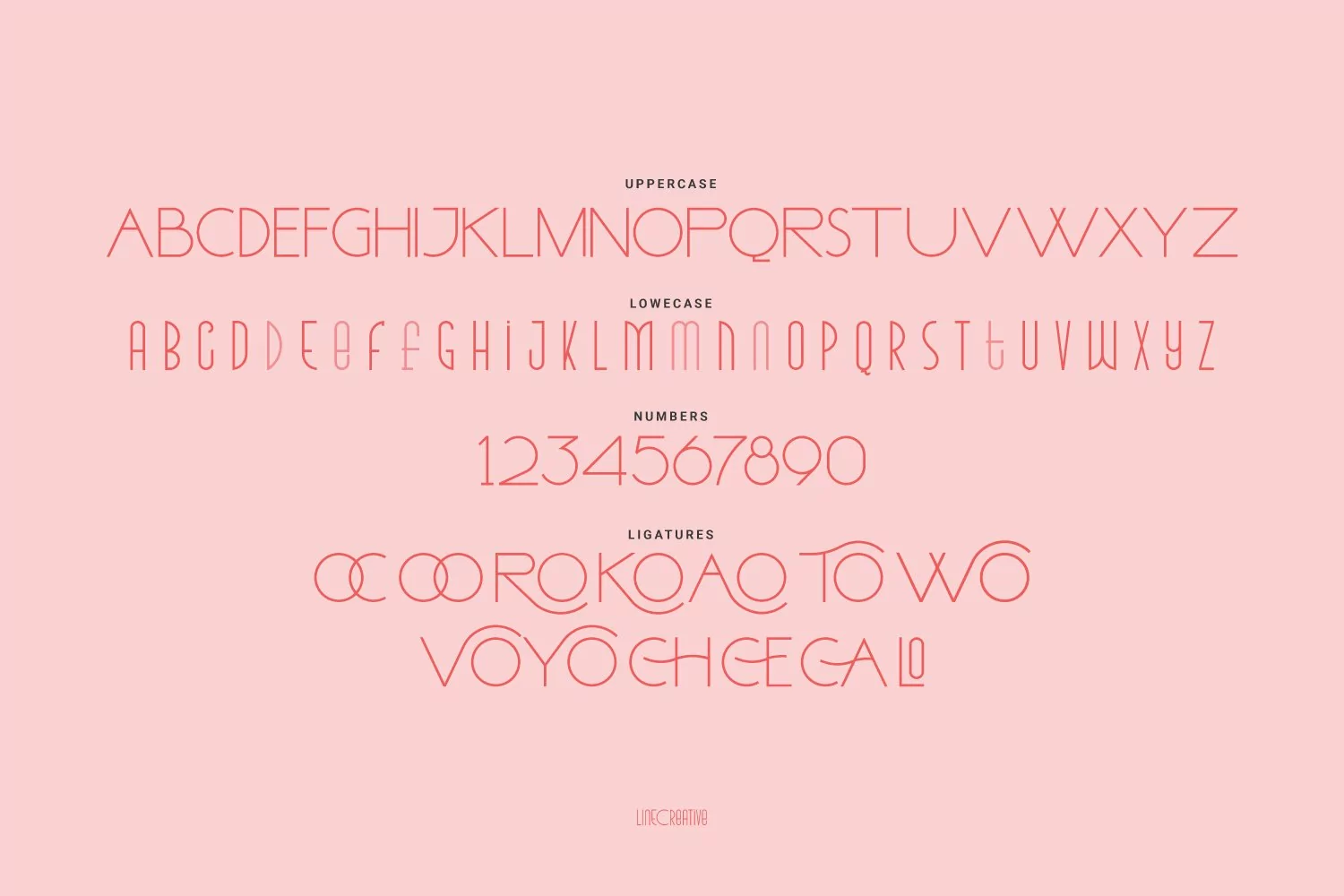
Room Shambles is an Art Deco typeface .This includes multilingual capitalization, numbers and punctuation. Room Shambles Art Deco typeface is perfect for your up coming projects. Such as luxury logo and branding, classy editorial design, woman magazine, cosmetic brand, fashion promotional, art gallery branding, museum, historical of architectural, boutique branding, stationery design, blog design, modern advertising design, card invitation, art quote, home decor, book/cover title, special events and any more.